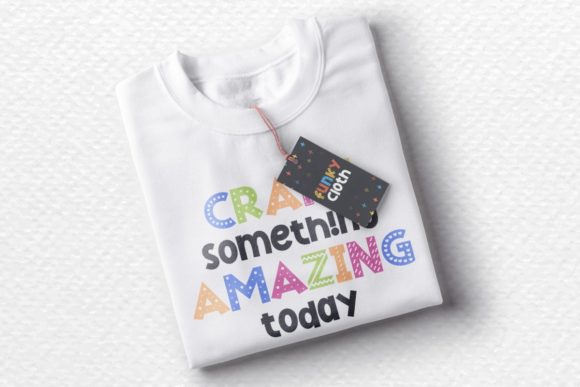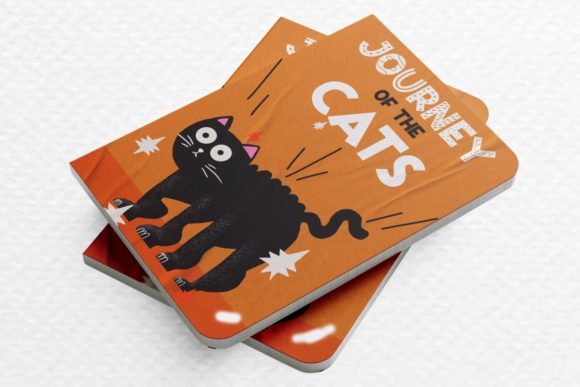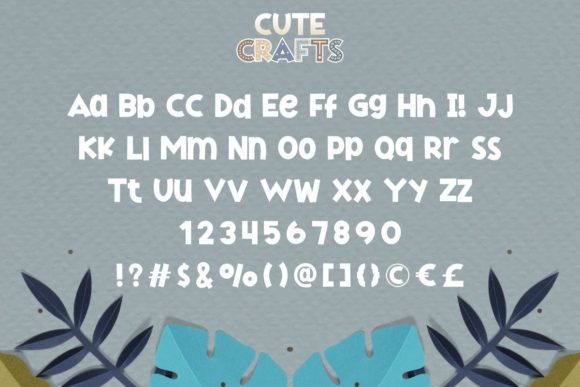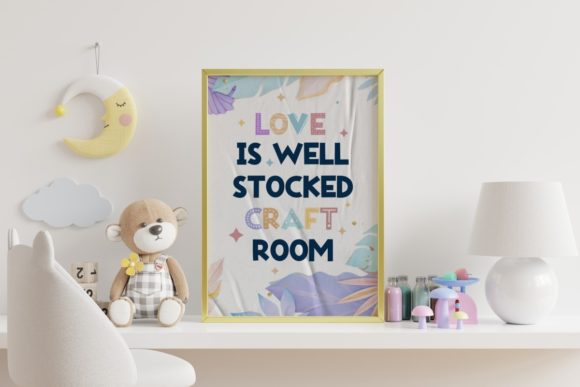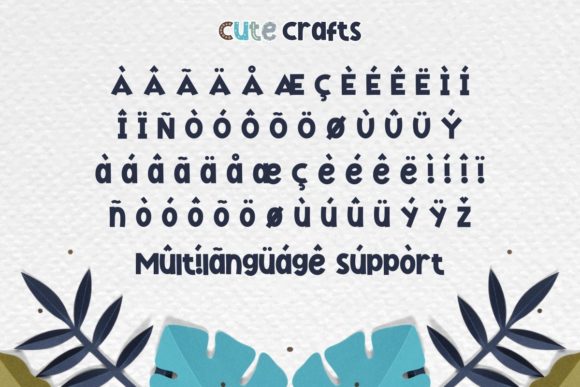
The Cute Crafts Font: A Playful Pairing for Creative Projects
I’ll never forget the time I was working on a craft project for a client, pouring my heart and soul into the design, only to realize that the font I was using just wasn’t cutting it. The project was for a kids’ party, and I needed something fun, playful, and eye-catching. That’s when I stumbled upon the Cute Crafts font, a delightful duo font that has since become a staple in my design toolkit.
So, what makes Cute Crafts so special? Here are a few things that I absolutely adore about this font:
- ✨ Modern and playful characters: The Cute Crafts font has a fresh, modern feel that’s perfect for crafting, family, and kids-related projects.
- ✅ Versatile pairing: The duo font comes with both decorative and sans serif options, making it easy to mix and match for a unique look.
- 💕 Colorful and handcrafted vibe: The font is inspired by colorful handcrafts, giving it a warm and cozy feel that’s perfect for DIY projects and gift packaging.
Of course, no font is perfect, and there are a few quirks to keep in mind:
- 🤔 Limited use in formal contexts: While Cute Crafts is amazing for creative projects, it may not be the best choice for formal or professional designs.
- ⚠️ Some glyph limitations: As with any font, there may be limitations to the glyphs and special characters available.
The Designer Inspiration Behind Cute Crafts
Cute Crafts was designed with the creative hobbyist in mind. The designer, inspired by the colorful world of handcrafts, aimed to create a font that would bring joy and playfulness to various projects. From gift packaging to kids’ party invitations, Cute Crafts is the perfect pairing for any creative endeavor.
| Is Cute Crafts suitable for digital and print projects? | Absolutely! Cute Crafts works beautifully in both digital and print formats, from social media graphics to party invitations and gift tags. |